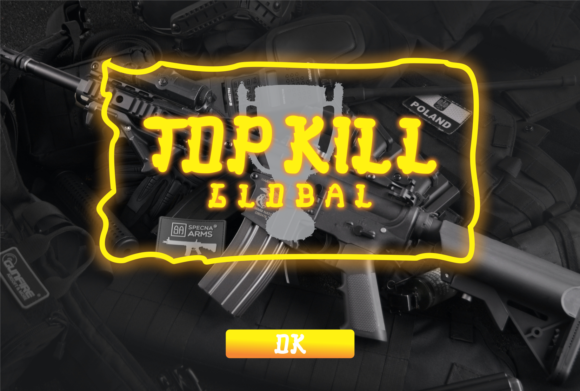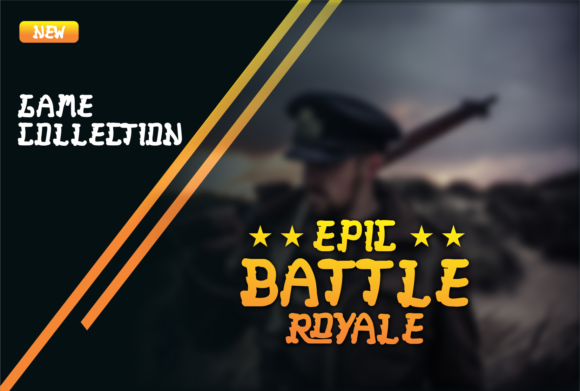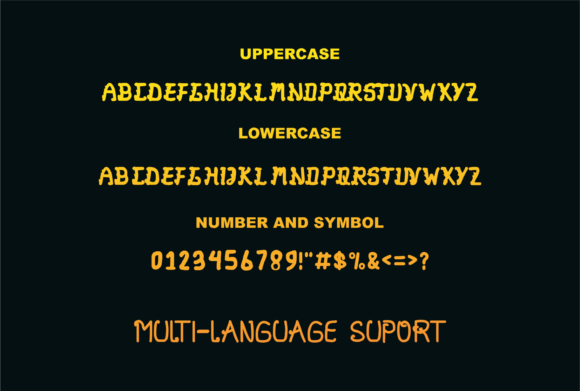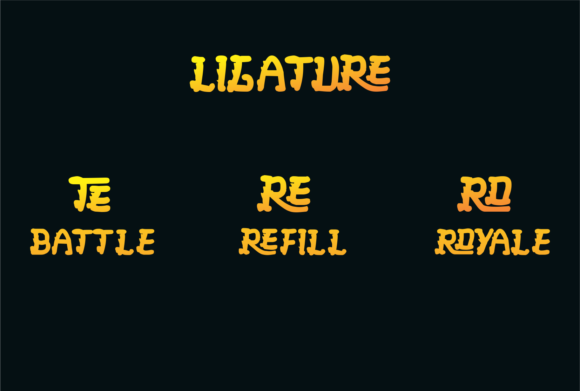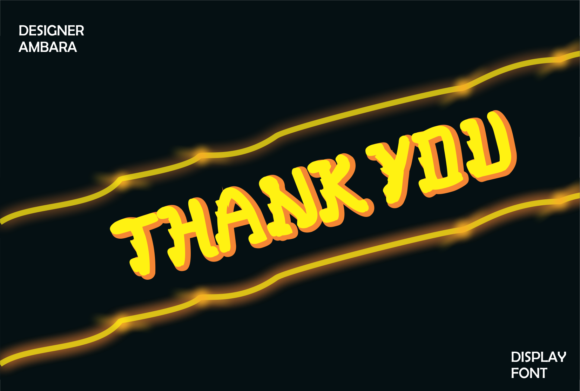
The Ultimate Game-Changer: Unleashing the Power of Battel Fire Font
An Honest Review of Battel Fire Font
- ✨ Bold and Edgy: Battel Fire Font is specifically designed for games, game covers, and action-packed designs. Its bold and edgy style screams “attention-grabber”.
- ✅ Perfect for RPGs: The font’s unique design elements make it an excellent choice for Role-Playing Games (RPGs) and other action-packed genres.
- 🎨 Highly Versatile: Battel Fire Font can be used for various design projects, including game covers, promotion materials, marketing, and advertisement.
While Battel Fire Font is an excellent choice for many design projects, there are a few things to keep in mind:
- ⚠️ Limited Use for Formal Designs: Due to its bold and edgy nature, Battel Fire Font might not be the best choice for formal designs or projects that require a more subtle approach.
- 🤔 Requires Attention to Kerning: As with any font, kerning is essential to ensure that the text looks visually appealing. Be sure to adjust the kerning to achieve the desired effect.
The Backstory Behind Battel Fire Font
Battel Fire Font was designed with gamers in mind. The creator, a passionate gamer and designer, wanted to craft a font that would capture the essence of action-packed games. Inspired by the bold and edgy world of RPGs, Battel Fire Font was born.
| Font Name | Battel Fire Font |
| Author | Ambara_studio |
Q: What type of designs is Battel Fire Font best suited for?
A: Battel Fire Font is perfect for game covers, promotion materials, marketing, advertisement, and other action-packed designs.
Q: Is Battel Fire Font available in different weights or styles?
A: Currently, Battel Fire Font is available in a single weight. However, the font’s versatility and OpenType features make it easy to experiment with different styles and effects.